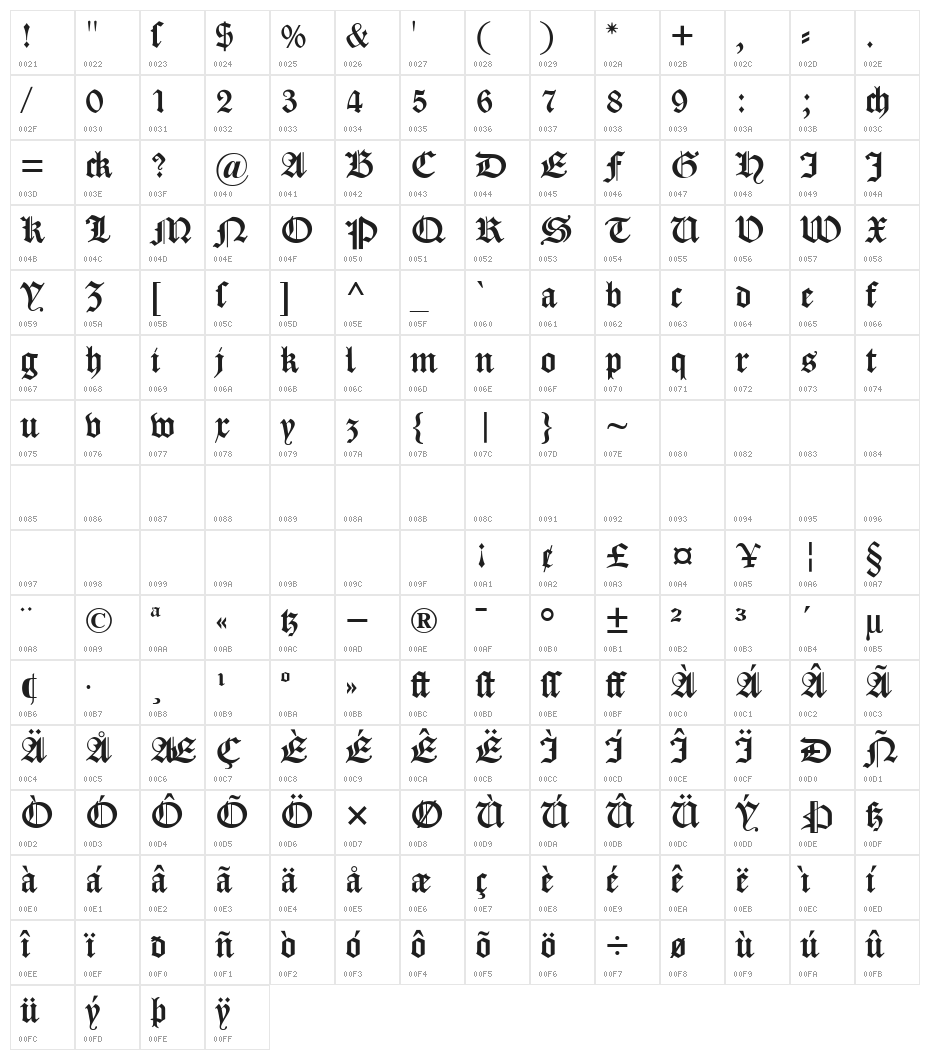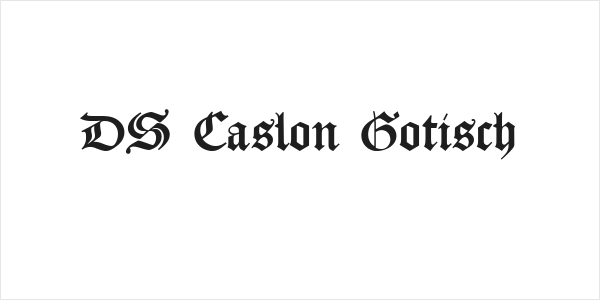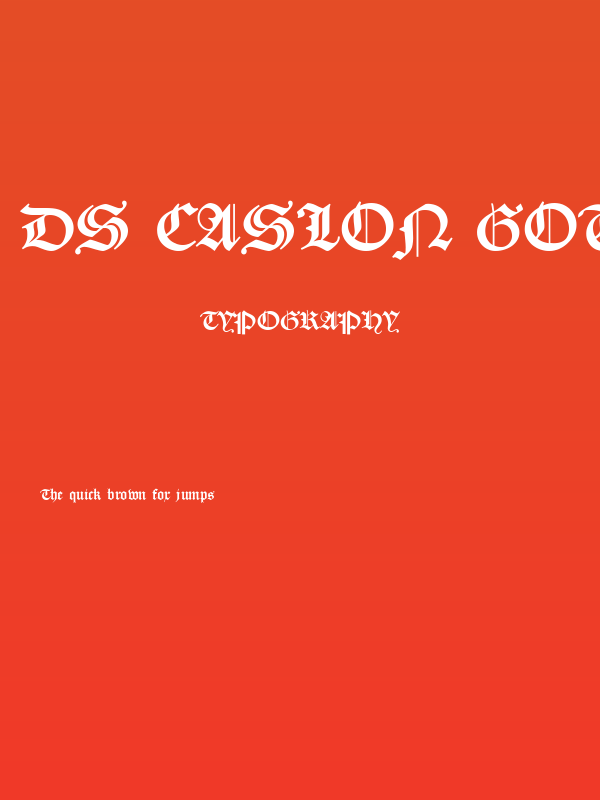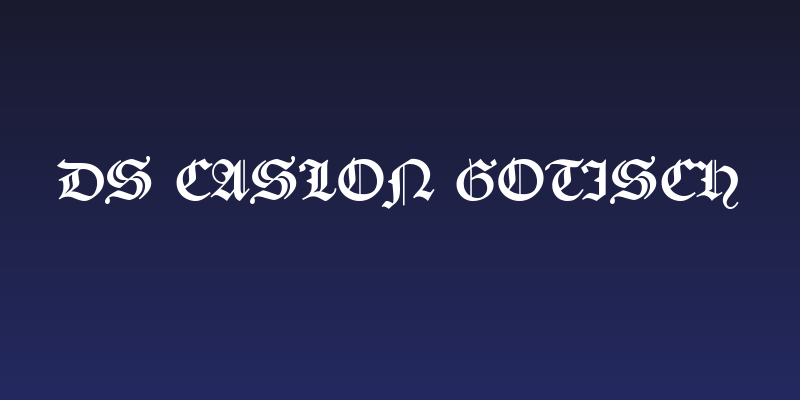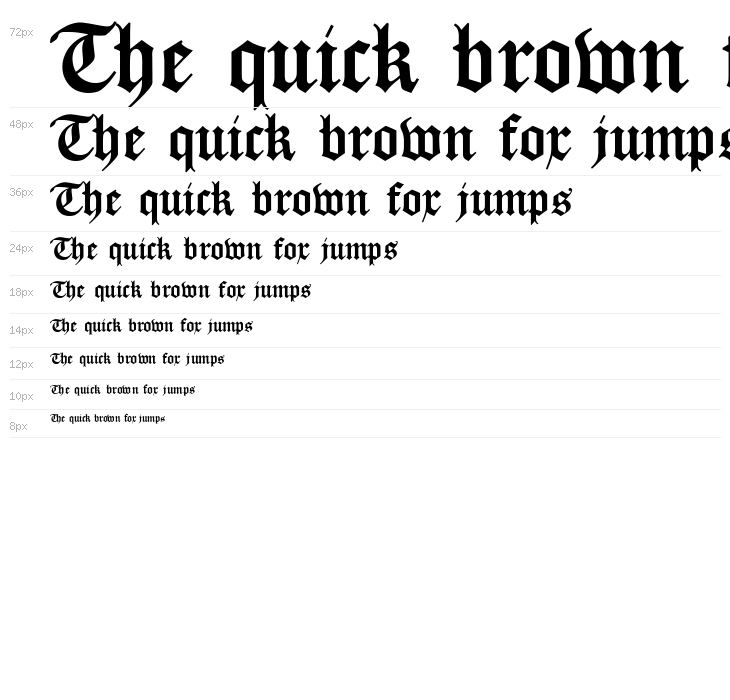
DS Caslon Gotisch Font
DS Caslon Gotisch Description
This font exhibits a classic blackletter style, characterized by its intricate and ornate letterforms. The uppercase letters are bold and dramatic, with sharp angles and elaborate serifs that give them a gothic appearance. The lowercase letters maintain the same decorative quality, with a consistent stroke width that enhances readability while preserving the historical aesthetic. The numerals are equally stylized, featuring the same angular and bold characteristics. Special characters are designed to match the overall theme, ensuring a cohesive look across all text elements. This font is perfect for projects that require a touch of medieval or traditional flair, such as invitations, certificates, or branding for historical-themed events.
| Use Case | Headlines, Logos, Decorative text |
| Proposed Projects | Ideal for historical-themed branding, invitations, certificates, and decorative projects. |